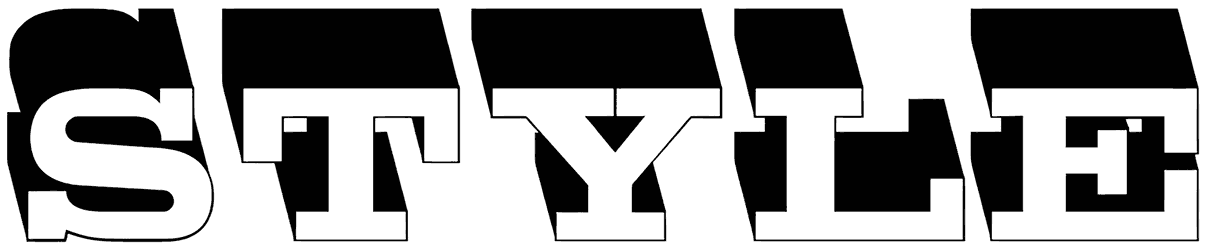
Style Font
Have you ever supposed that it’s time to give a real effect to your texts to amaze everyone? Serif fonts with trustworthy behavior can save your routine graphics, especially what is now in our hands, Style with three different sorts can provide the great flexibility you fancy.
It’s a pity to ignore this ancient 3D font for the lack of lowercase letters and numbers, so try your luck right now and show originality in your design.